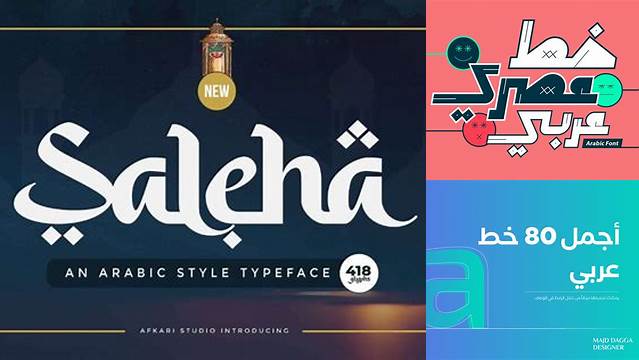
Free Arabic Fonts: Download Awesome Designs From Freepik
Hey guys! If you're on the hunt for some seriously cool Arabic fonts, you've landed in the right place. We're diving deep into the world of freepik arabic fonts free download, exploring how you can snag some amazing designs without spending a dime. Arabic typography is seriously beautiful and versatile, and finding the right fonts can elevate your projects from basic to breathtaking. Whether you're a graphic designer, a student, or just someone who loves the beauty of Arabic script, this guide is your ultimate resource. We'll cover everything from where to find these fonts to how to use them effectively, ensuring you can create stunning visuals that capture the essence of Arabic culture and style. Let's get started!
1. The Allure of Freepik: Your Gateway to Free Arabic Fonts
When you think about freepik arabic fonts free download, the first thing that comes to mind should be the treasure trove that is Freepik. This platform is a goldmine for designers, offering a vast library of free and premium resources, including a fantastic selection of Arabic fonts. The beauty of Freepik lies in its user-friendly interface and the sheer variety of options available. You can easily search for fonts based on different styles, weights, and even the intended use, making it super simple to find exactly what you need. Freepik's commitment to quality ensures that the fonts you download are not only visually appealing but also technically sound, allowing for seamless integration into your design projects. The platform's focus on creative assets means that you can find fonts that cater to a wide range of design needs, from elegant calligraphy styles to modern, minimalist designs. This makes Freepik an invaluable resource for anyone looking to explore the diverse world of Arabic typography. The convenience and accessibility of Freepik make it a go-to destination for designers of all levels, providing a rich source of inspiration and practical resources. Freepik's role in the freepik arabic fonts free download ecosystem is massive, giving accessibility to a variety of users across various design and language levels. You're not just getting a font; you're unlocking a world of design possibilities, all within a few clicks.
2. Why Choose Arabic Fonts for Your Design Projects?
Choosing Arabic fonts can add a unique and culturally rich element to your design projects. These fonts are not just visually appealing; they also carry a deep historical and artistic significance, making them perfect for various applications. Whether you're working on a logo, a website, or a print design, incorporating Arabic fonts can help you create a distinct visual identity that stands out from the crowd. Think about the impact you can make with freepik arabic fonts free download: you can add this distinctiveness for free. The inherent beauty of Arabic script, with its flowing lines and intricate details, provides an aesthetic appeal that can capture the attention of your audience. Using Arabic fonts can also help you connect with a wider audience, especially if you are targeting markets with a significant Arabic-speaking population. This inclusive approach can enhance your brand's appeal and build stronger relationships with your target demographic. From a branding perspective, the use of Arabic fonts can signal authenticity and a deep understanding of cultural nuances. This can be particularly effective for businesses looking to expand into new markets or enhance their presence in regions with a strong Arab cultural presence. By selecting the right Arabic font, you can infuse your designs with elegance, sophistication, and a sense of heritage, creating a powerful visual statement that reflects your brand's values and vision. Arabic fonts open up new opportunities for creative expression, allowing you to create truly memorable and impactful designs.
3. Exploring Different Styles: Calligraphy, Modern, and More
When you search for freepik arabic fonts free download, you’ll discover a diverse array of styles. Arabic typography is incredibly versatile. Arabic calligraphy is one of the most traditional styles and is characterized by its elegant, flowing lines and artistic embellishments. These fonts are perfect for projects that require a touch of sophistication and cultural richness. Then you can explore modern Arabic fonts. Modern Arabic fonts often feature clean lines and geometric shapes, making them ideal for contemporary designs. They are perfect for logos, websites, and other digital media projects. In between these styles, there are also a wide range of fonts. You can find fonts that combine modern and traditional elements. There is a font for every taste and every type of project. Consider the project’s goals and target audience when selecting a font. The availability of these diverse styles makes it easy to find the perfect match for your project.